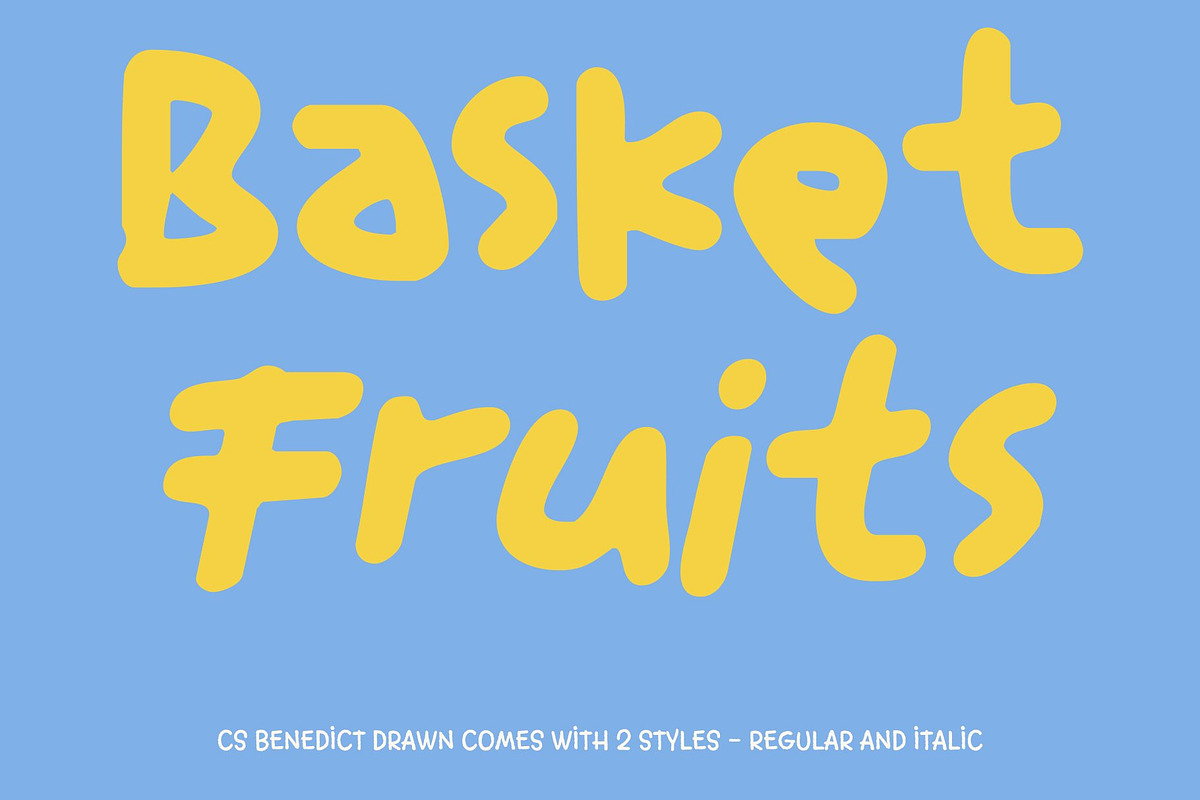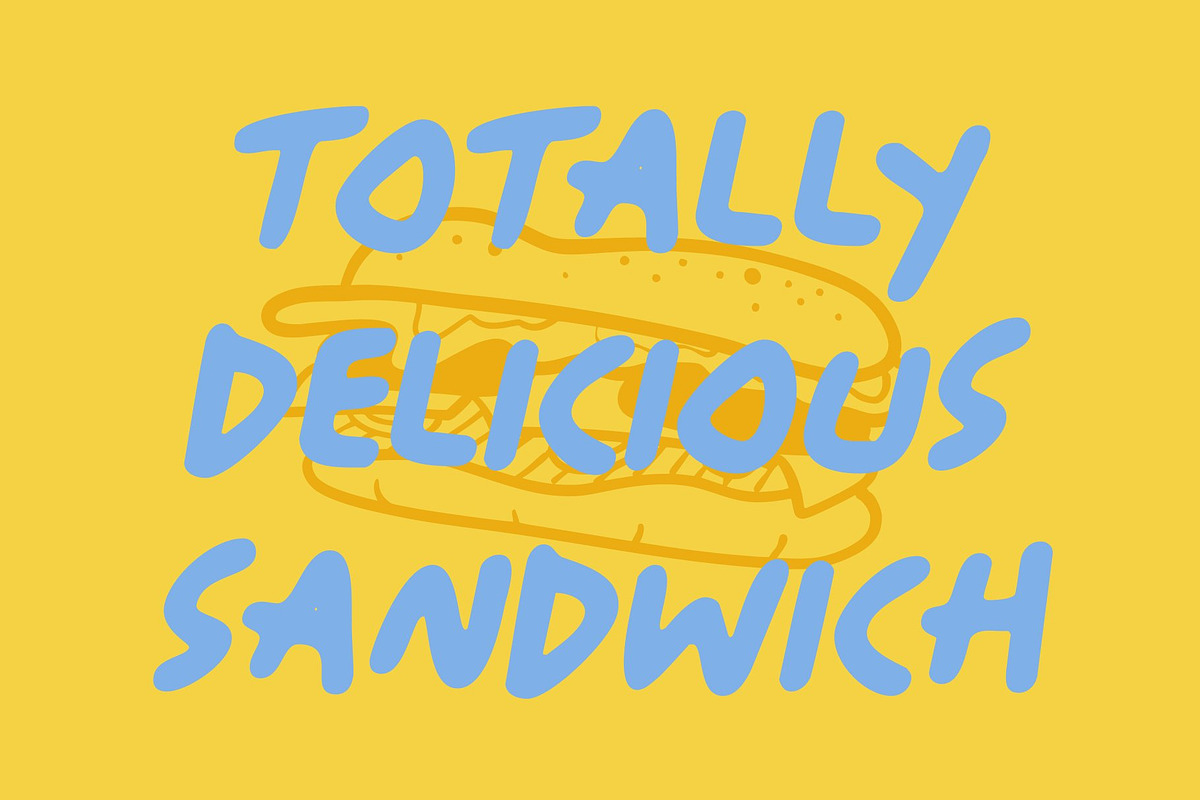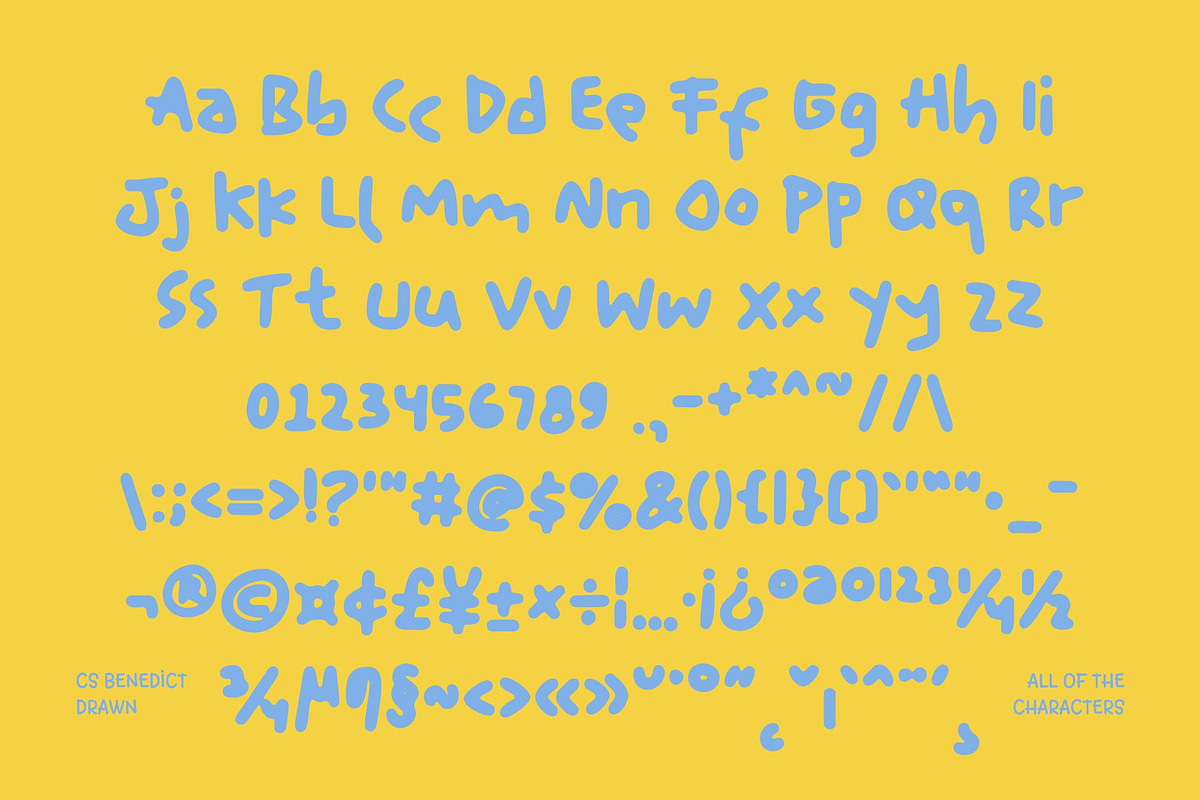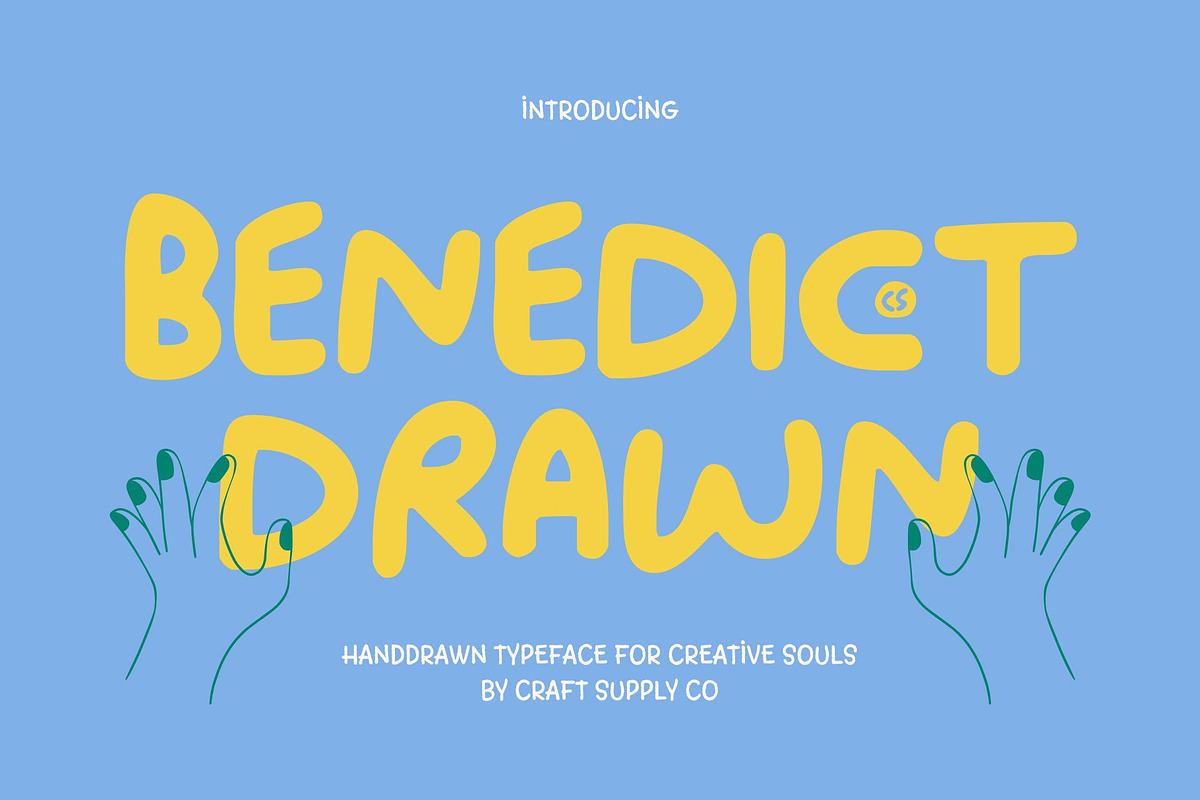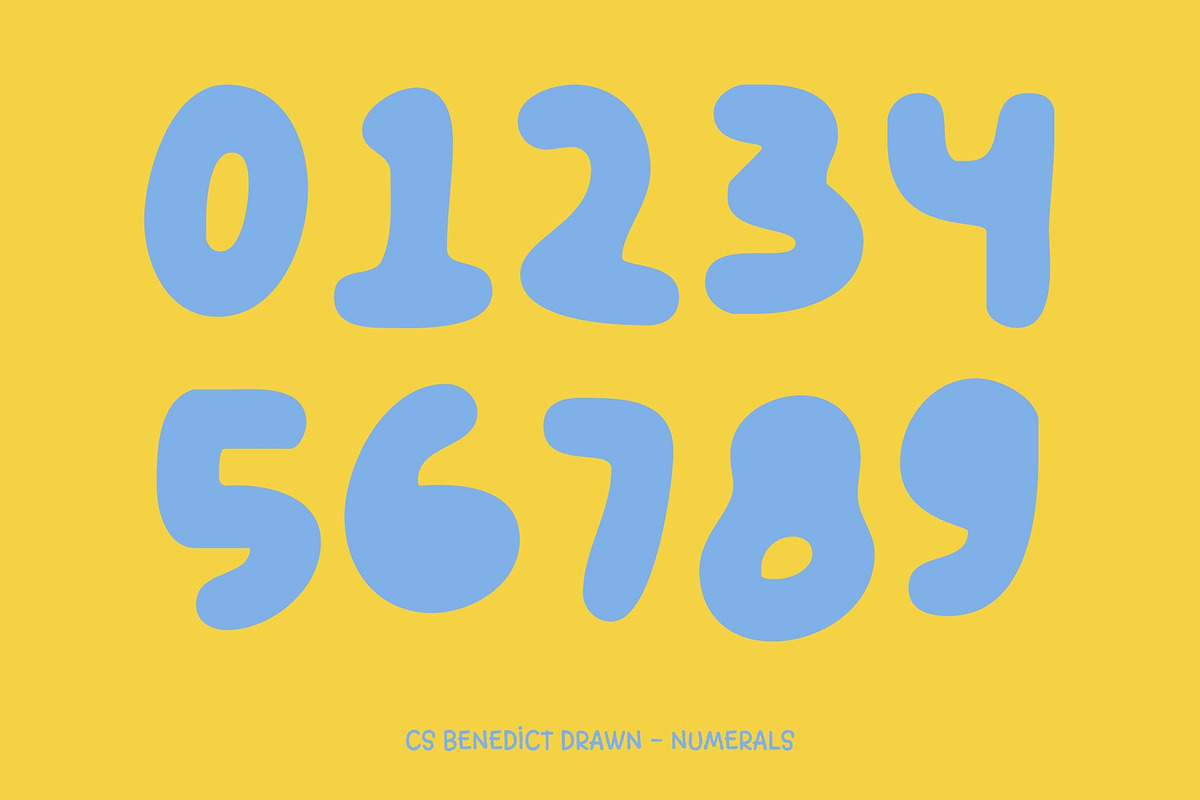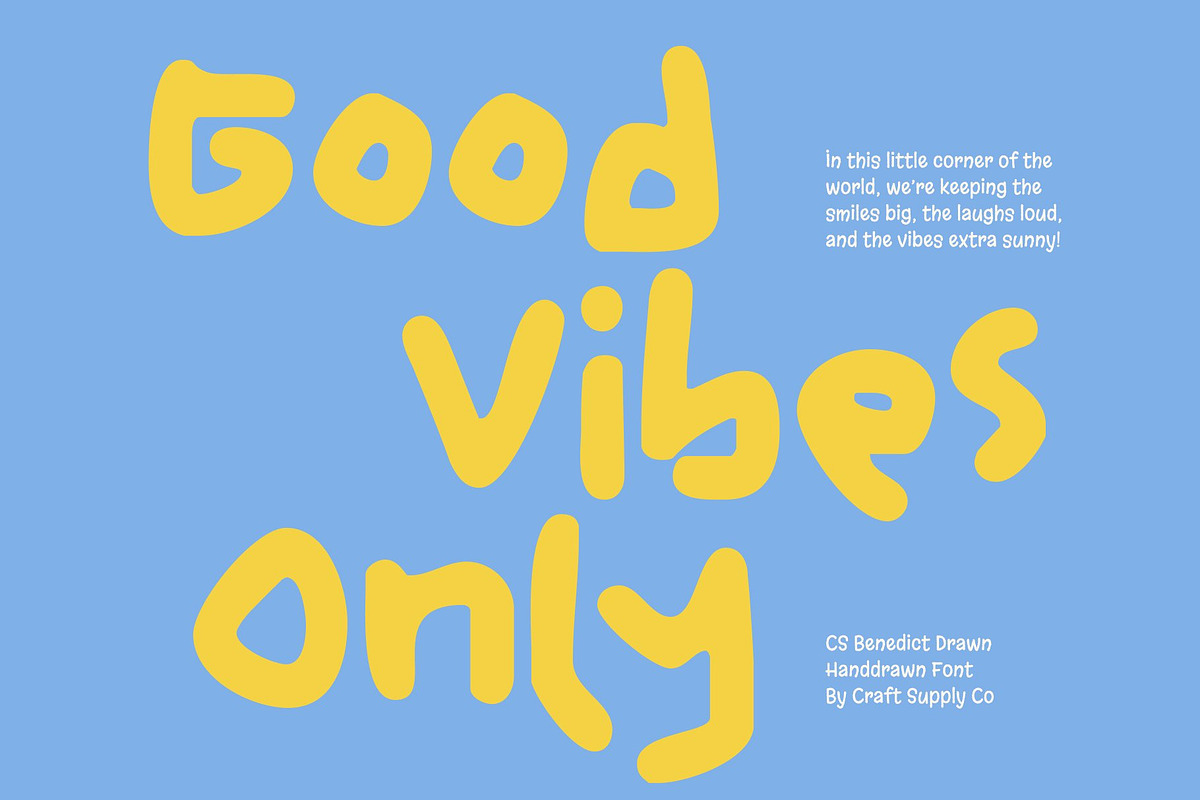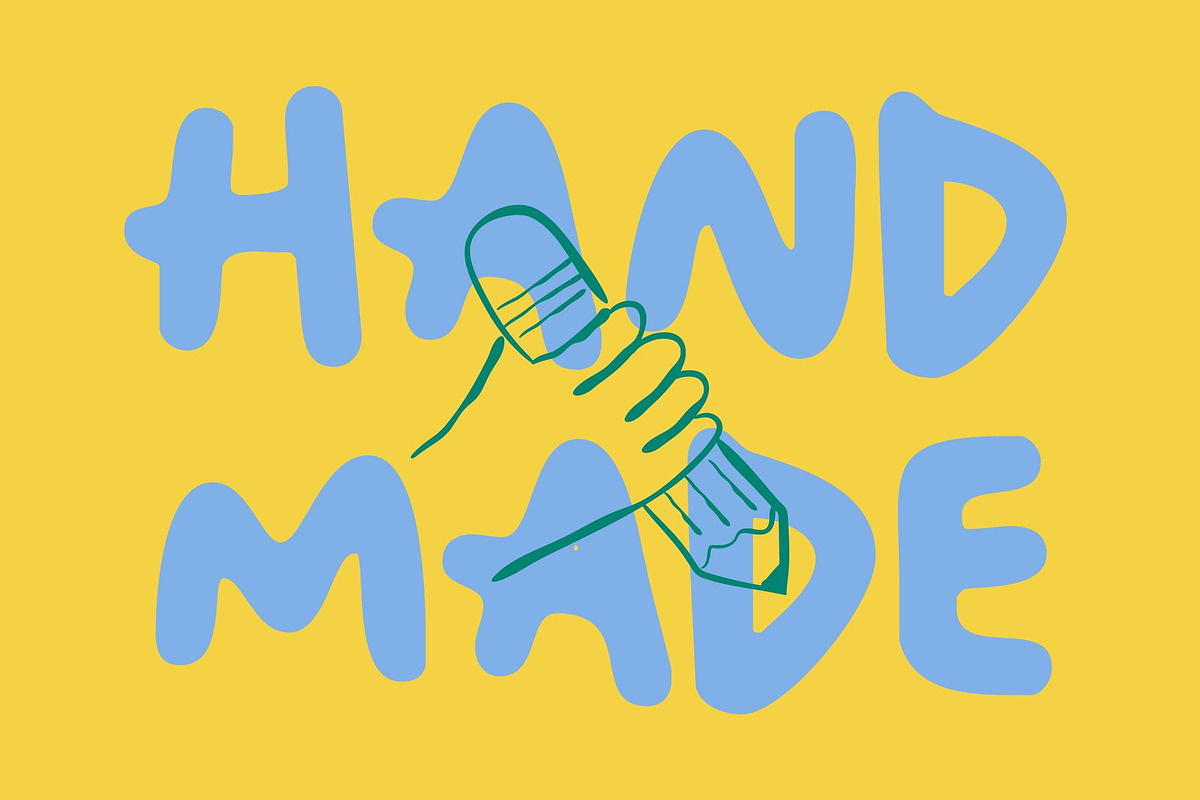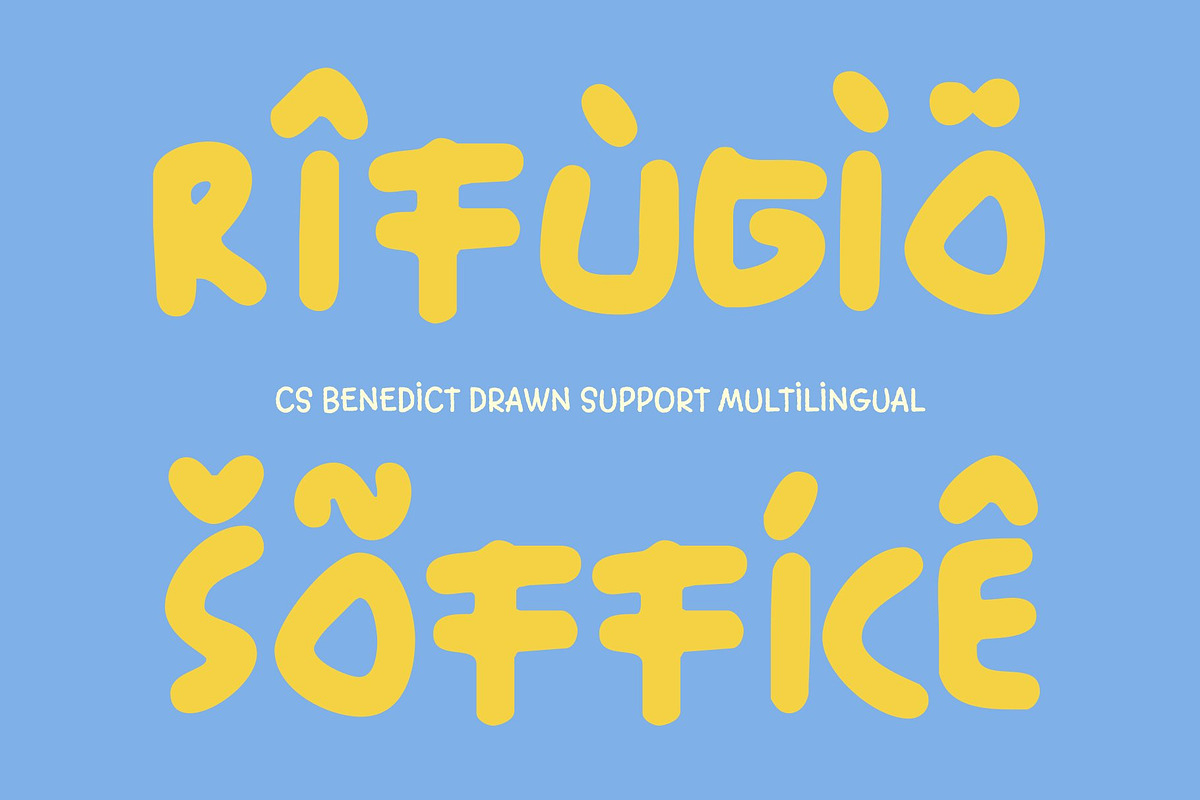
CS Benedict Drawn
CS Benedict Drawn – Gritty Messy Font with Playful Scribbled Energy
Raw Scribbles with Bold, Hand-Drawn Character This is a gritty, messy display font designed to capture the spirit of freehand scribbling and joyful imperfection. Its irregular strokes and loose handwritten structure create a raw, expressive look that feels spontaneous and alive. Each letter appears boldly drawn without restraint, celebrating chaos and creativity rather than precision. The result is a font packed with personality, movement, and authentic hand-drawn charm.
Playfully Messy and Full of Energy This font thrives on its playful disorder. Uneven lines, quirky proportions, and rough textures give this font a lively rhythm that feels youthful and fun. The scribbled aesthetic adds a sense of motion and imagination, making every word feel dynamic and expressive. It’s perfect for designs that want to feel casual, energetic, and delightfully unpolished.
Perfect for Kids’ Designs and Creative Expression This font shines in children’s books, educational materials, craft projects, and playful branding. Its friendly messiness feels approachable and relatable, instantly connecting with young audiences and creative minds.
Ideal for Fun Branding and Casual Visuals From posters and social media graphics to playful packaging and informal branding, this font delivers bold impact with a cheerful, handmade attitude turning every design into a joyful creative statement.